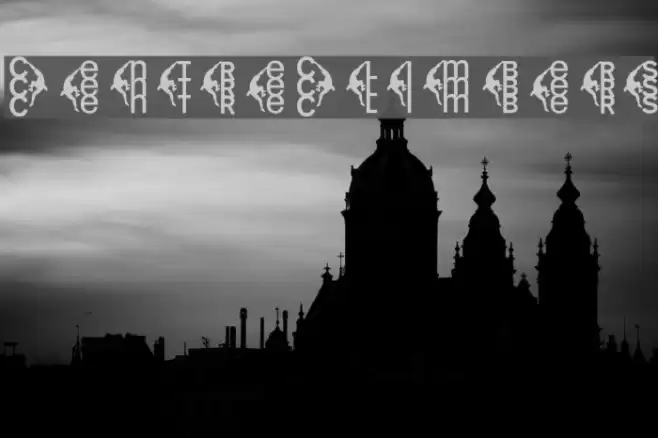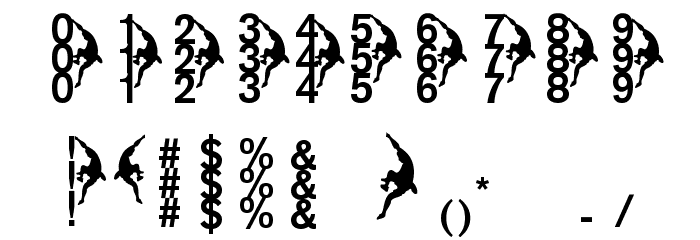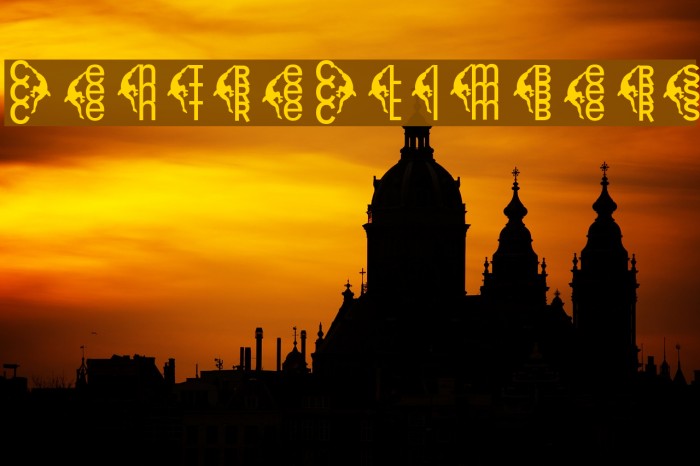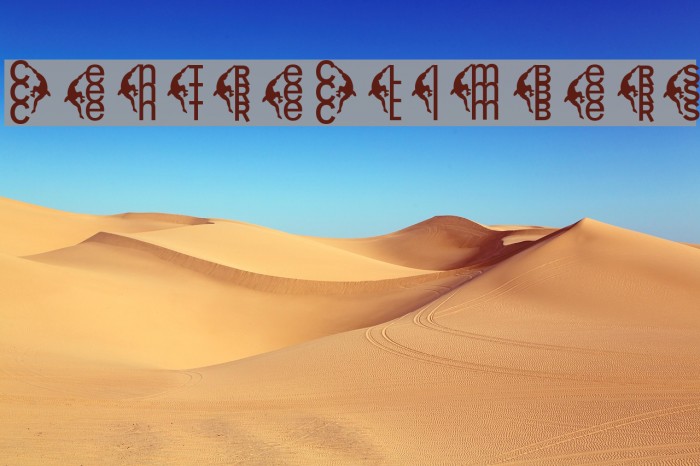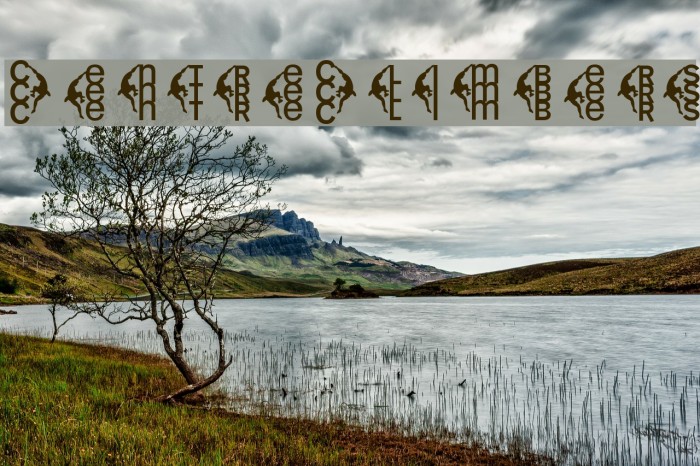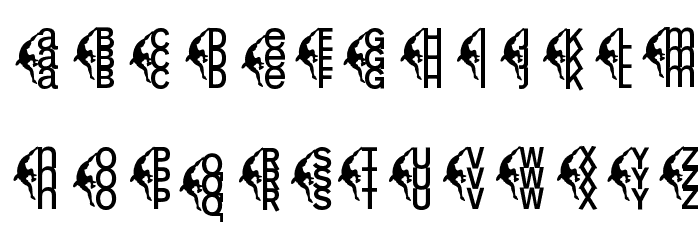
CentreClimbers Font
CentreClimbers Description
This font features a unique and playful design where each character is integrated with a silhouette of a climber. The letters are bold and clear, with the climber figures adding a dynamic and adventurous touch. The combination of traditional letterforms with the climber silhouette creates a striking visual effect, making it ideal for projects that aim to convey energy and movement. The font maintains readability while offering a decorative element that stands out.
A bold, adventurous font with integrated climber silhouettes from Uncategorized fonts.
- Proposed Projects: Ideal for outdoor adventure branding, climbing event posters, sports merchandise, and any project seeking to convey excitement and movement.